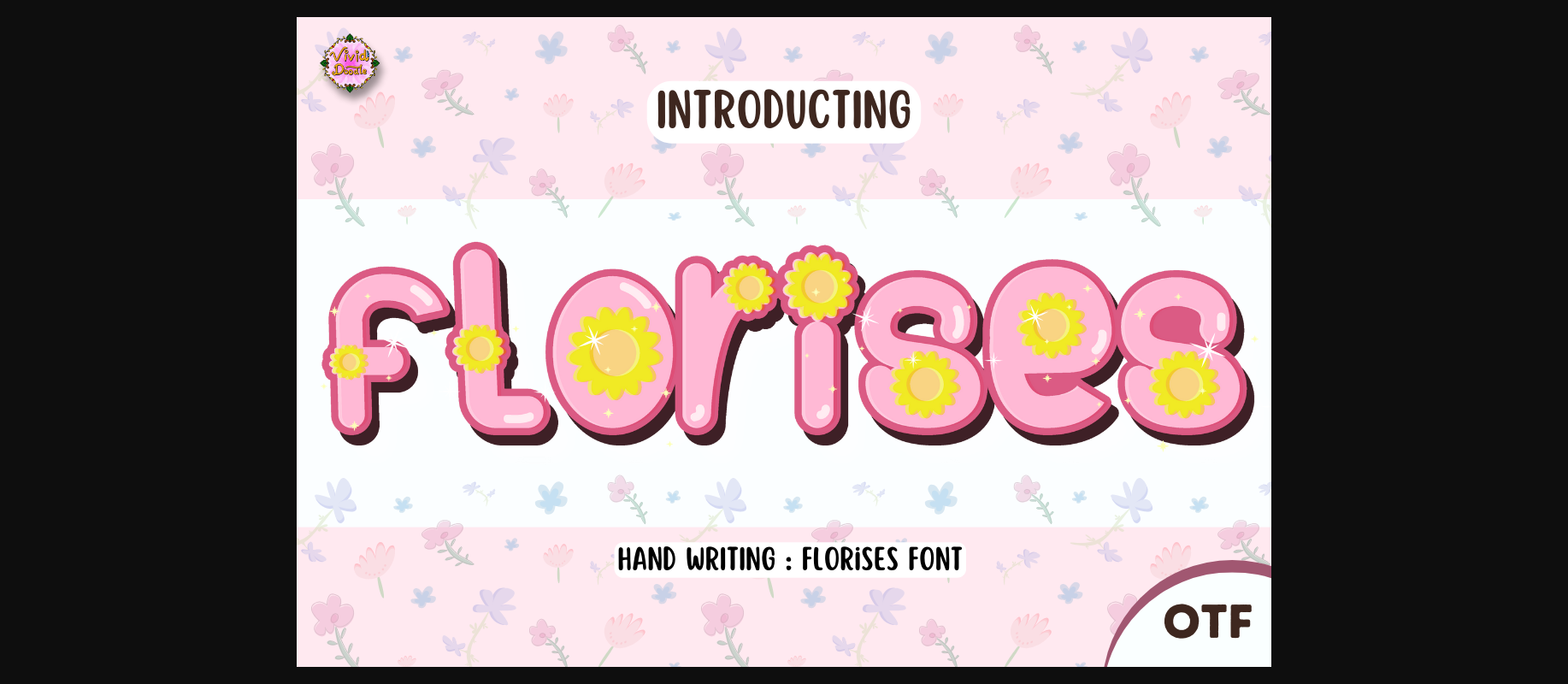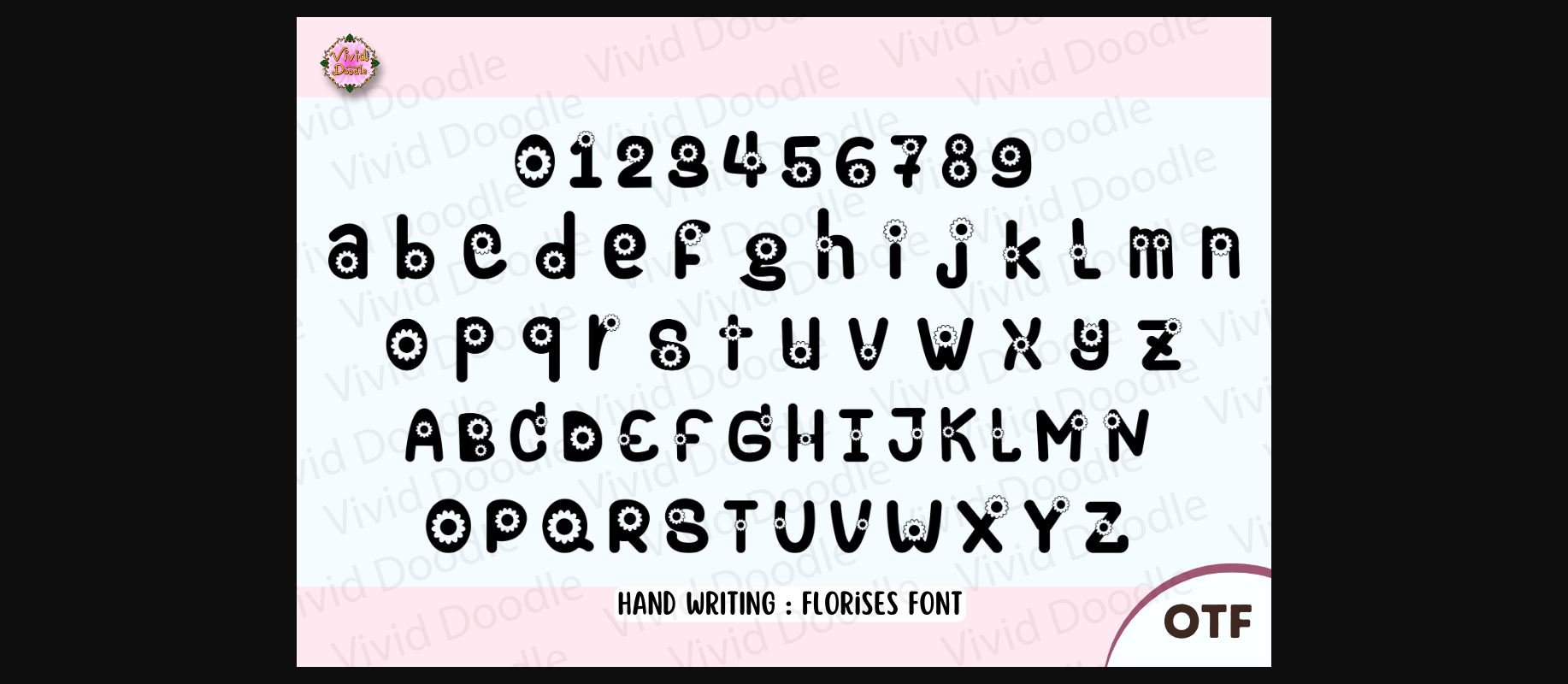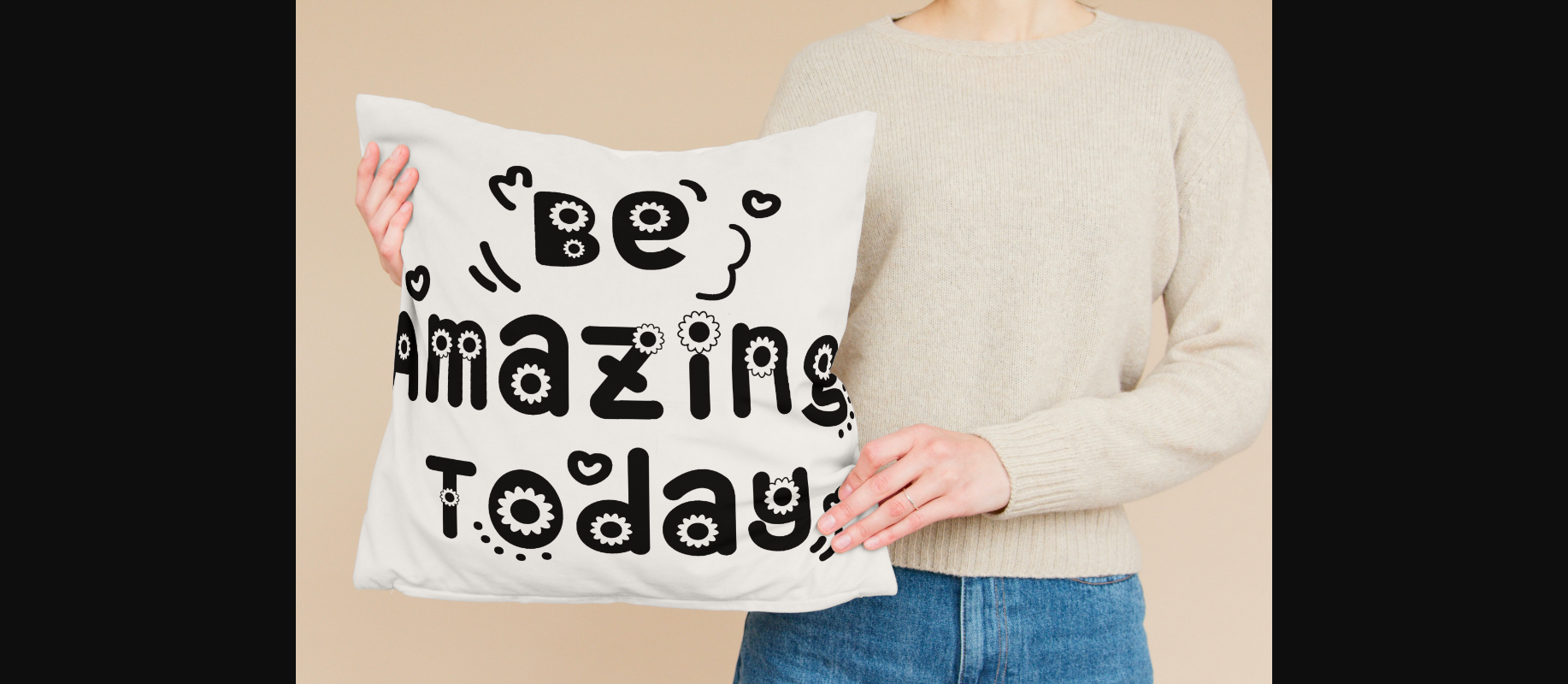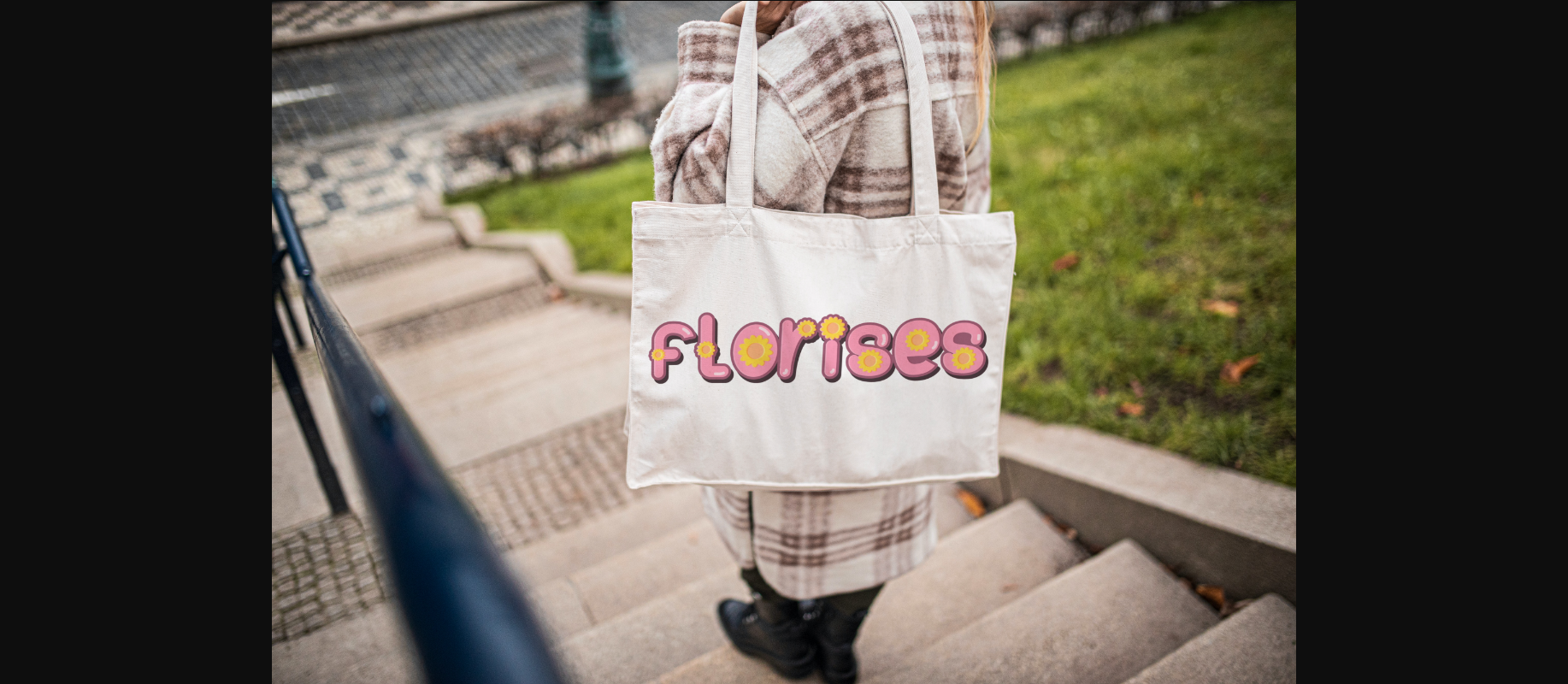
About Florises Font
Introducing Florises font—an exquisite typeface designed to infuse your creative art with the essence of blooming inspiration. Each letter is delicately adorned with floral motifs, bringing a touch of elegance and nature’s beauty to your designs. Perfect for projects seeking a fresh and inspiring ambiance, this font combines artistic flair with botanical grace. Elevate your artwork with the enchanting charm of the Florises font, inviting your audience to experience a blossoming journey through each stroke. Transform your designs into a celebration of natural beauty and creativity with this uniquely captivating and gracefully styled typeface!